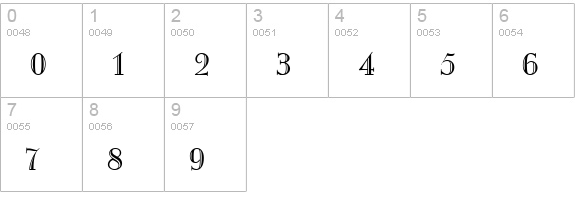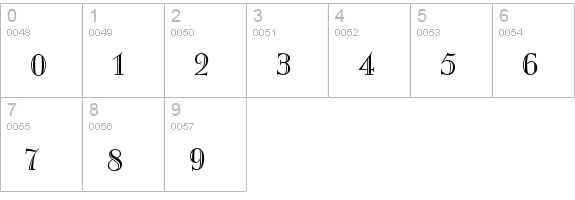
MonarchEngraved Font Details
MonarchEngraved is a classic and elegant font that exudes sophistication and luxury. Its intricate design features beautifully engraved details that add a touch of regality to any project. Perfect for formal invitations, certificates, and high-end branding, MonarchEngraved commands attention and leaves a lasting impression. The best part? MonarchEngraved is available for free download at FontsMarket.com. Whether you're looking to elevate your designs or add a touch of refinement to your work, this exquisite font is a must-have in your collection. Download MonarchEngraved today and effortlessly elevate your projects with its timeless charm and sophistication.